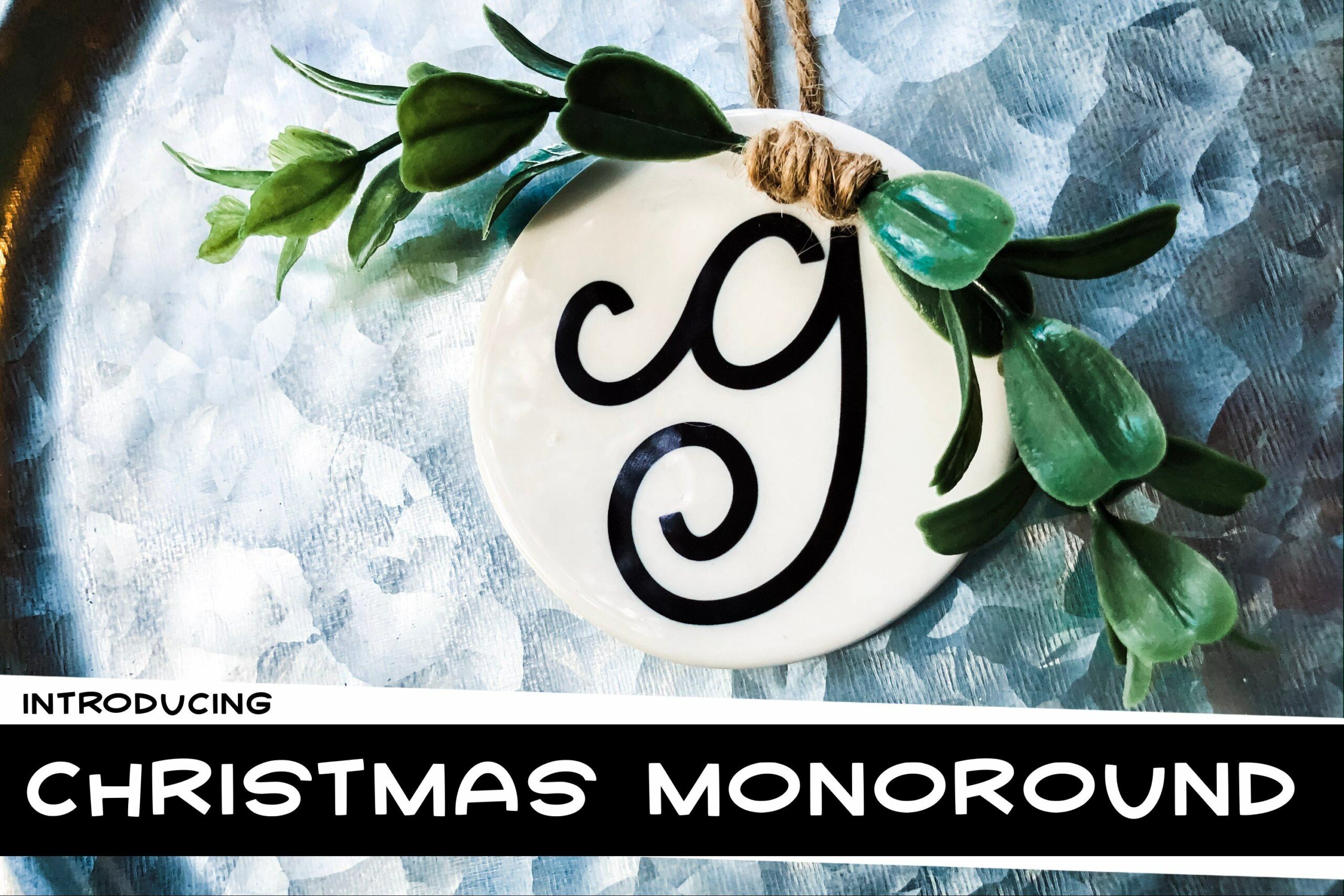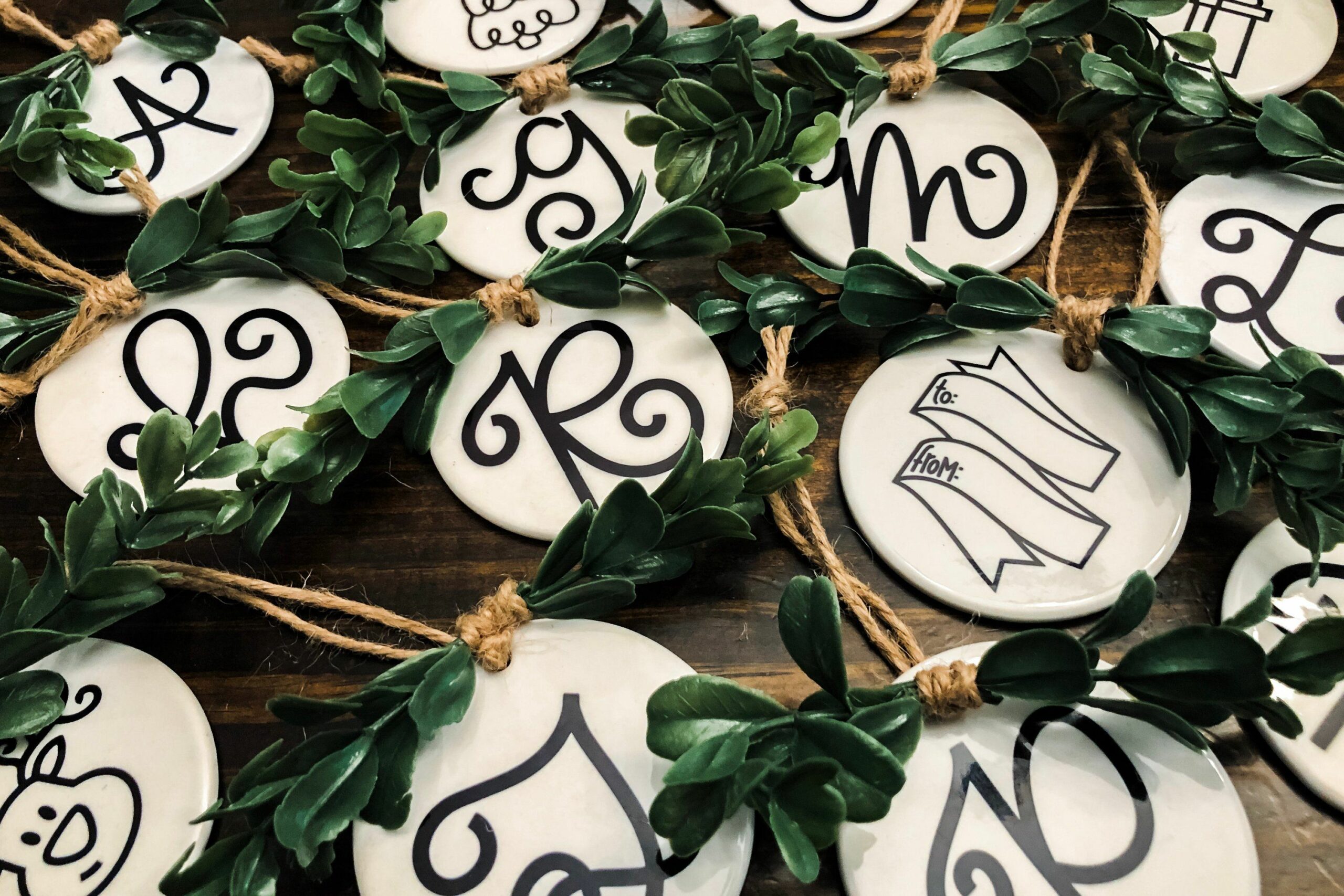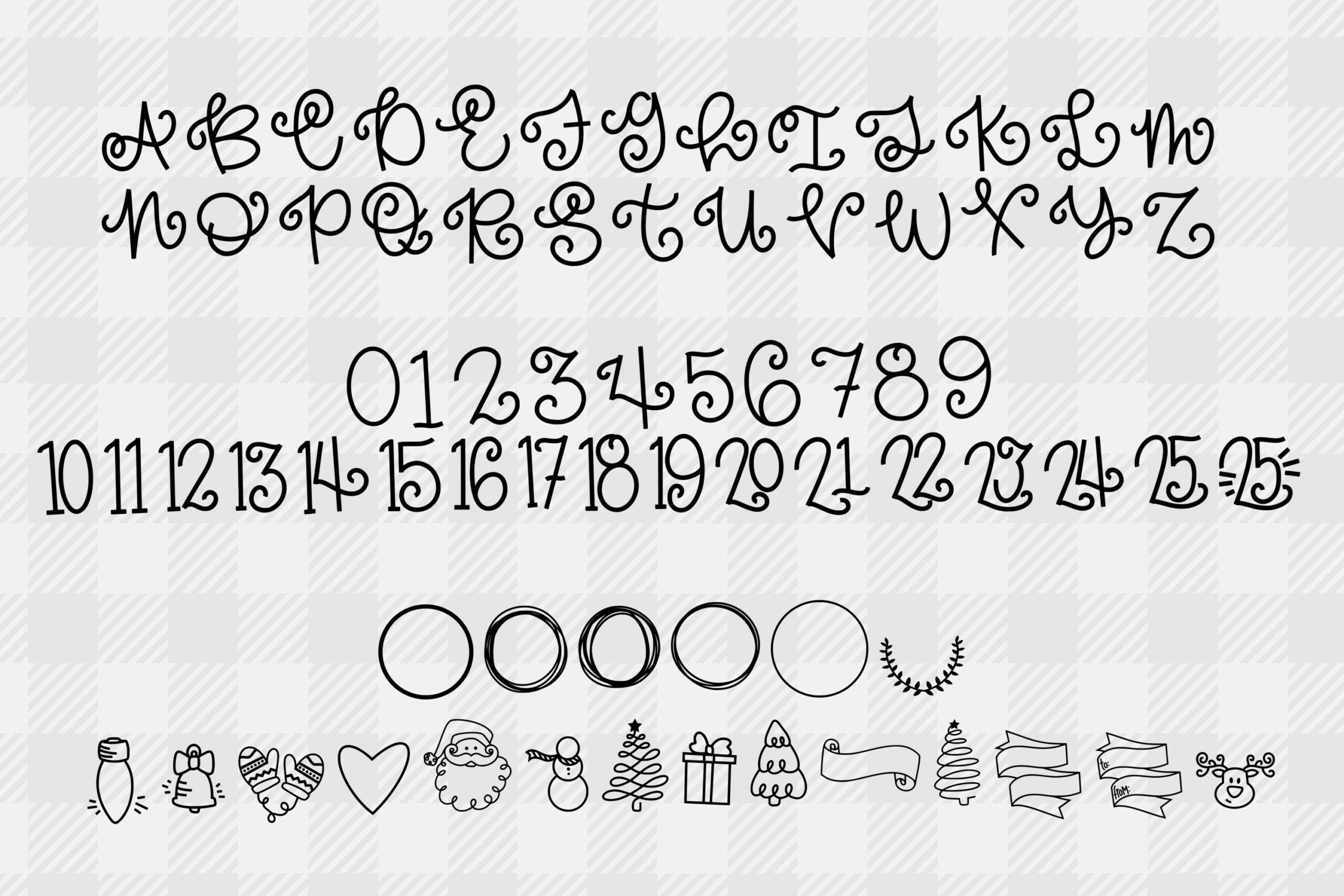
HomeScript FontsChristmas Monoround Script Fonts Christmas Monoround FacebookXPinterestWhatsApp 1 of 3 ... ... ... About Christmas Monoround The Christmas Monoround font is wonderful whether you use it for Christmas ornaments or on other projects in need of a monogram font. Includes seasonal and other dingbats that are simply adorable! DOWNLOAD NOW People also explored Bobby Font Richmonte Font Galad Font Donitea Script Font Savana Font Aisha Font Compaq 1980 Font Baby Cute Font Simili Font 295 0 TagsChristmas Monoround Previous articleSweet GirlsNext articleRamovia (LIMITED OFFER) LEAVE A REPLY Cancel reply Comment: Please enter your comment! Name:* Please enter your name here Email:* You have entered an incorrect email address! Please enter your email address here Website: Save my name, email, and website in this browser for the next time I comment. Personal Use Free Stronger Personal Use Free Read more about this font BD Fluke Personal Use Free Read more about this font Stereofidelic Personal Use Free Read more about this font Austin Personal Use Free Read more about this font BLOG How to Install and Use Fonts on Windows, macOS, and Web Projects How to Install and Use Fonts on Windows, macOS, and Web Projects Fonts are a crucial part of design and branding. Whether you’re designing a... How to Cut Any Font on Cricut: Convert a Font to SVG (Free) Exploring Font Trends Best Fonts for T-Shirt Design – Top 2025 Picks